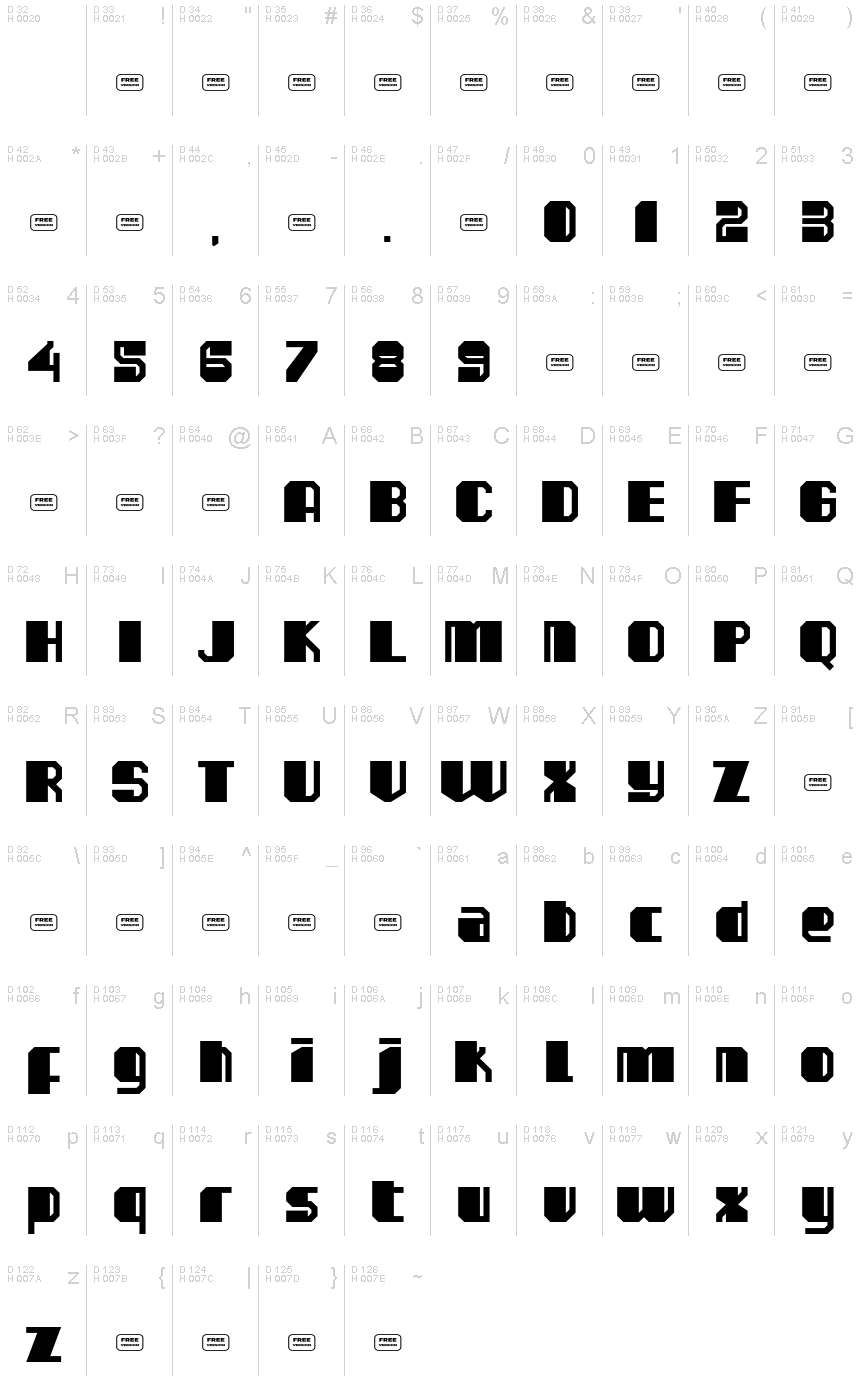
NETBEE Free Trial
Netbee is a unique display typeface, designed by Typefactoryco. With its sharp, bee-like aesthetic, this bold font exudes a distinct techno-inspired charm. The striking letterforms blend modern minimalism with a touch of industrial flair, creating an exquisite and subtly captivating visual experience.
Netbee's versatility makes it a compelling choice for a wide range of design projects. Its bold, attention-grabbing presence lends itself well to headlines, logos, and branding applications, where it can help convey a sense of technological sophistication and cutting-edge style. Whether used in digital interfaces, print media, or eye-catching signage, Netbee's distinctive character is sure to leave a lasting impression.